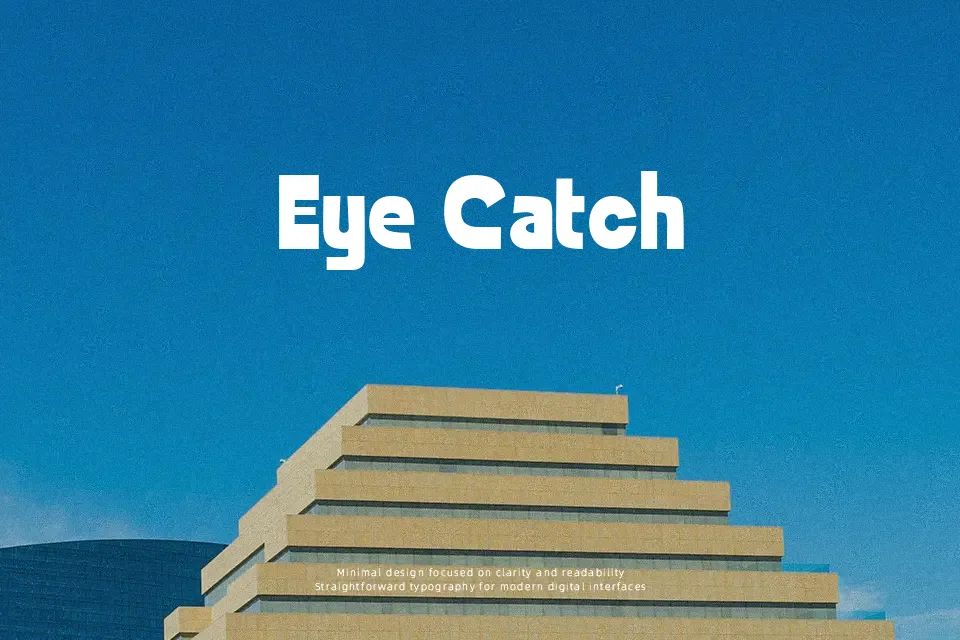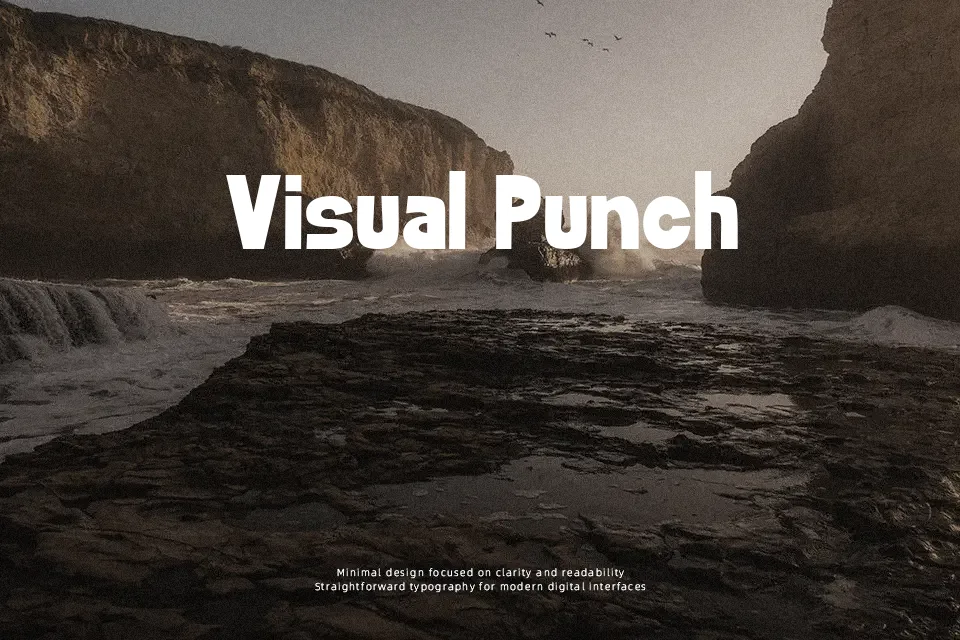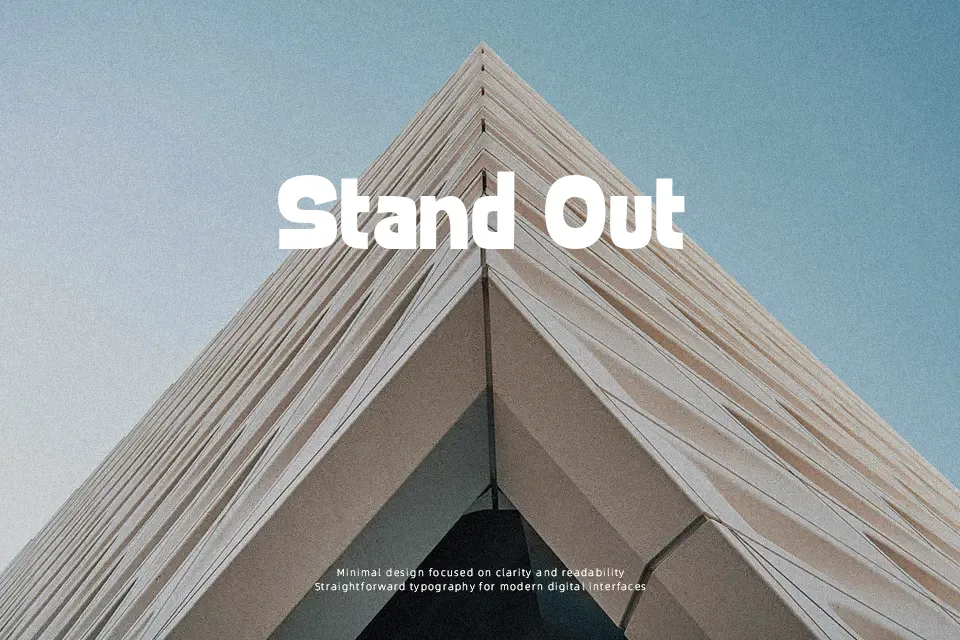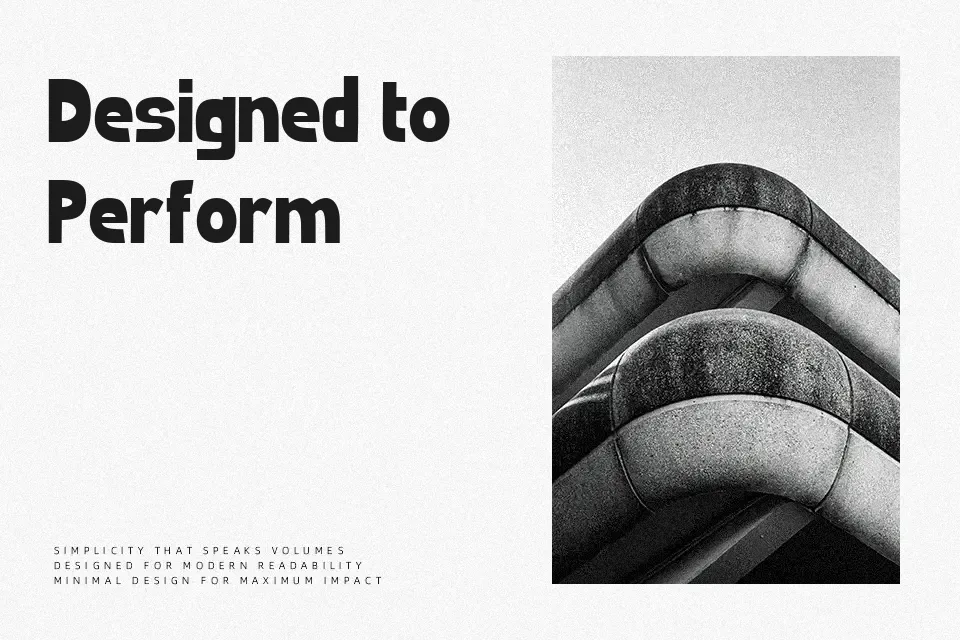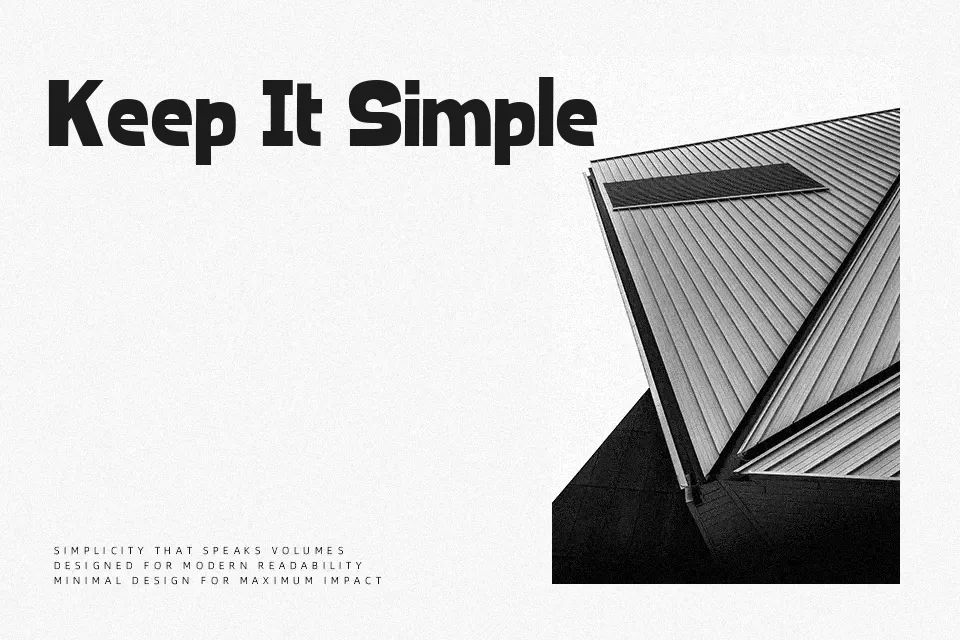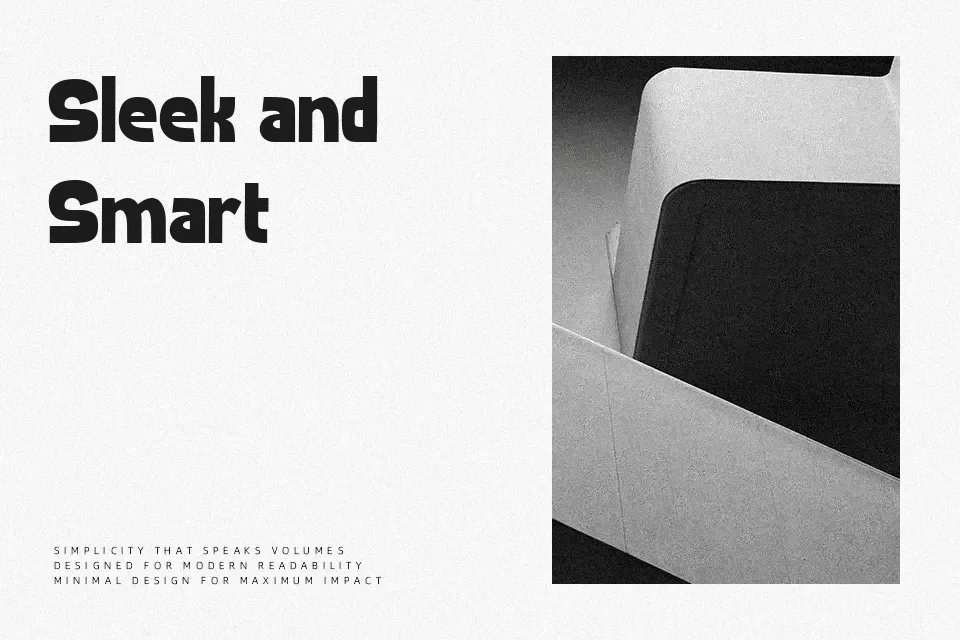
Shake Mouth Font
Shake Mouth Font features exaggerated stroke weights, rounded terminal shapes, and distinctive vintage-inspired curves that immediately establish a groovy visual identity. The letterforms display tight spacing and low internal counter space, creating dense word shapes suited for prominent title treatments and apparel graphics. While the typeface maintains solid character distinction at large display scales, the heavy structural mass reduces legibility when scaled down to smaller sizes. Consequently, the design functions reliably for compact poster headings, album covers, and energetic packaging, but it remains impractical for sustained body text or detailed tabular layouts where open proportions and higher stroke contrast are essential.
Best For: vintage apparel graphics, music festival posters, retro product packaging, album cover headlines
Not Ideal For: continuous body text, mobile application interface labels, dense editorial layouts, small caption print